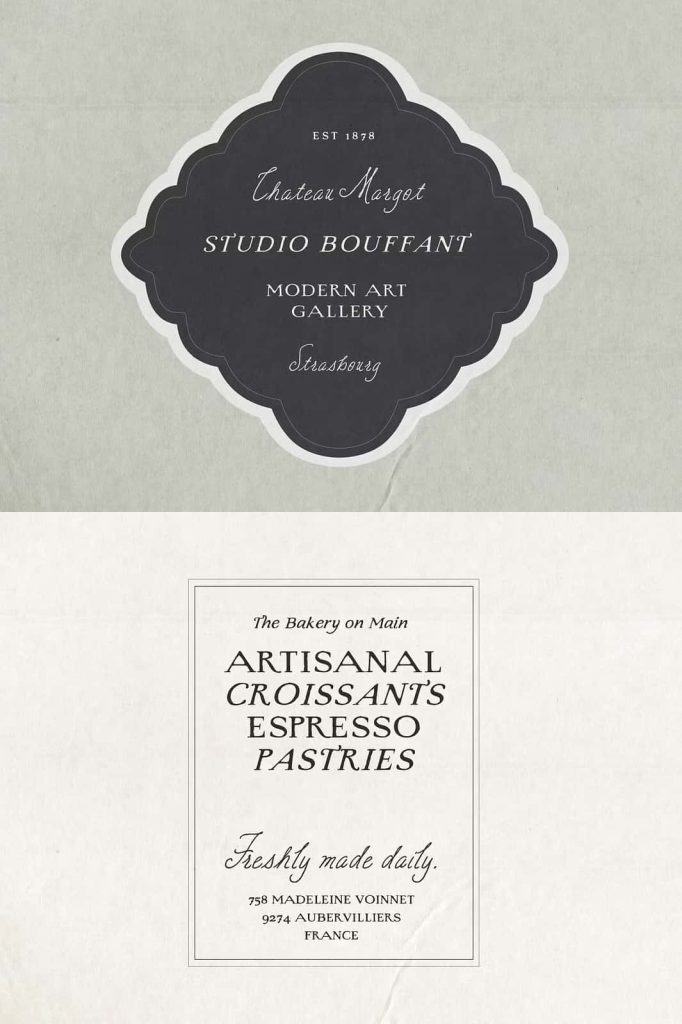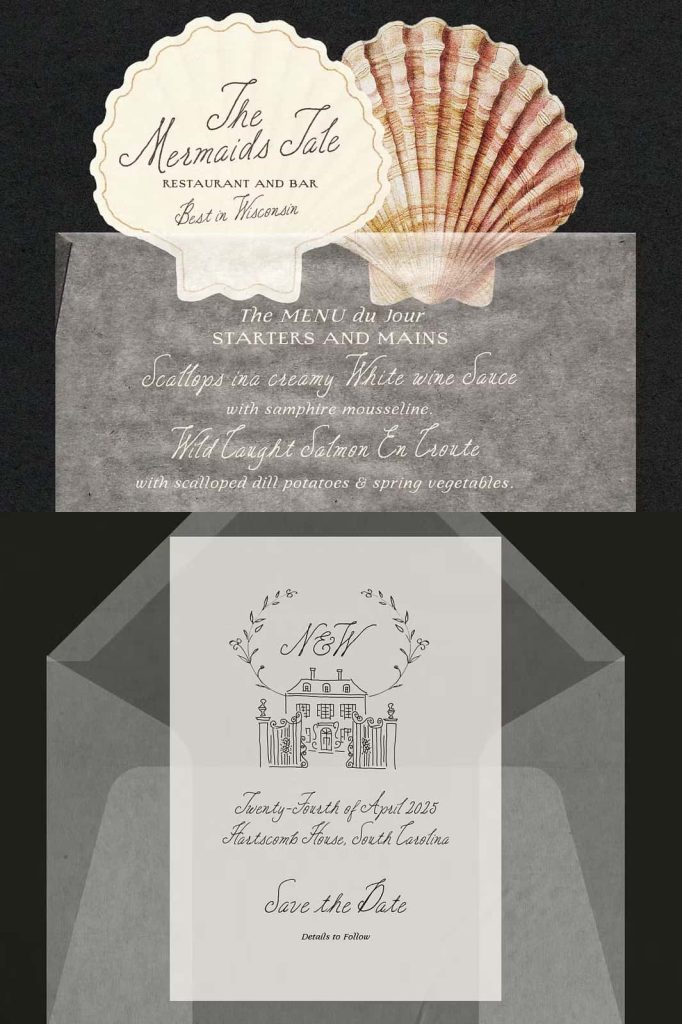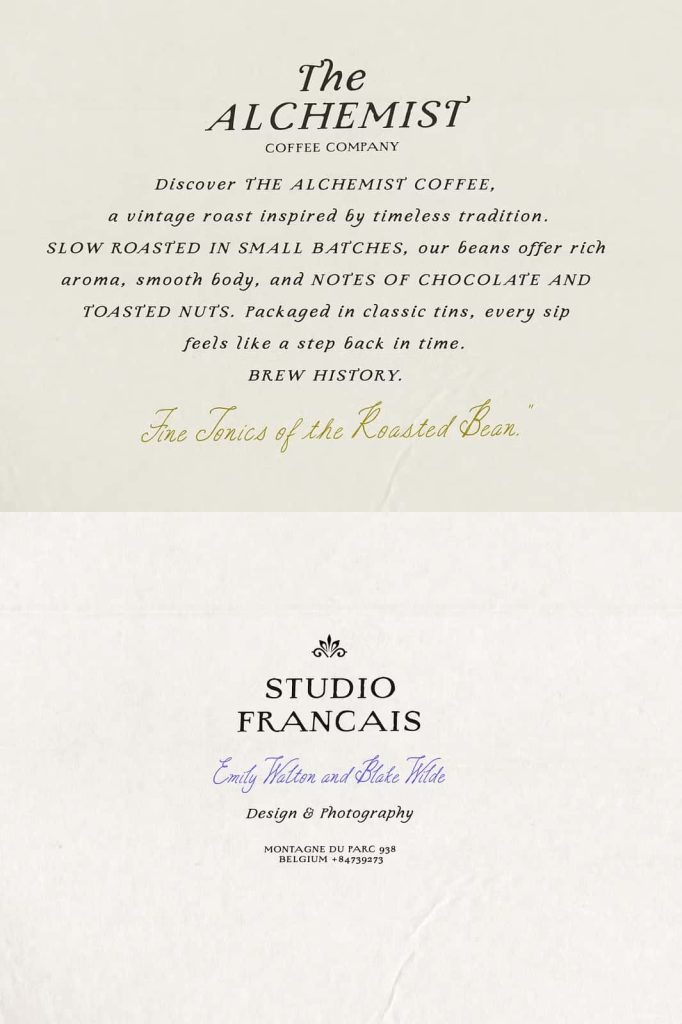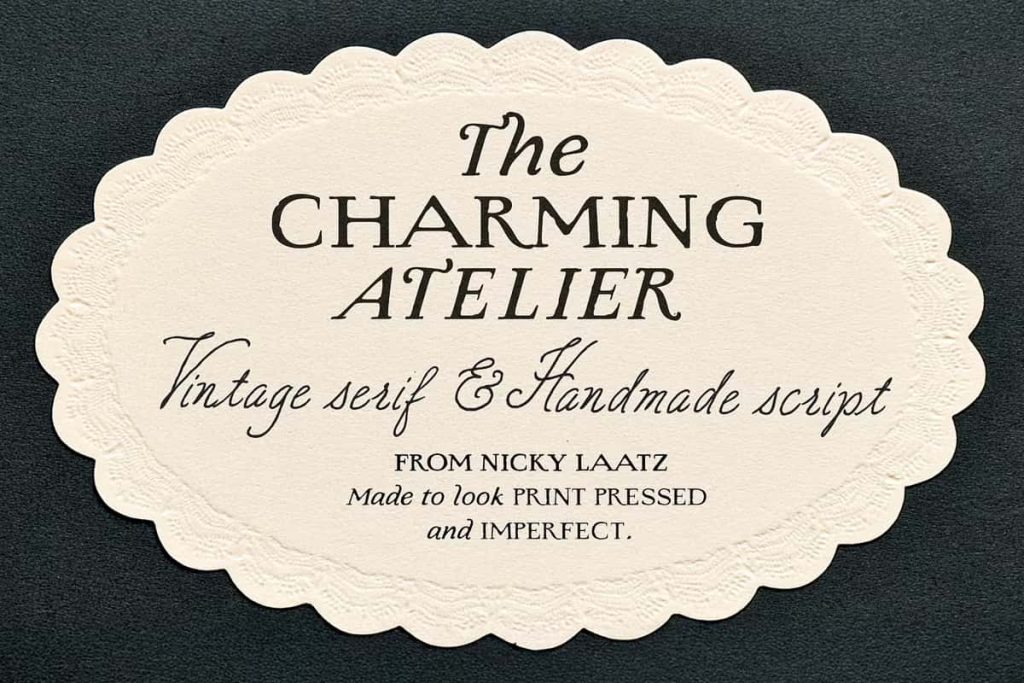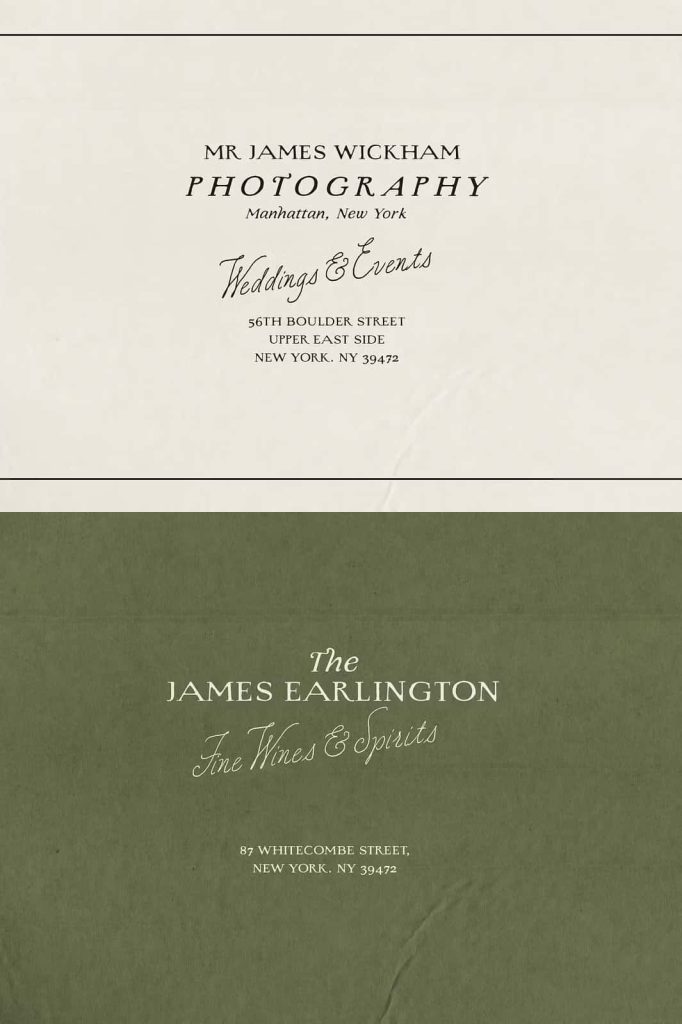
Charming Atelier Font Duo: Vintage Elegance Meets Handcrafted Charm
Charming Atelier Font Duo brings together two beautifully crafted type styles to create a harmonious balance between vintage sophistication and organic warmth. Designed with intention and artistic care, this font duo captures the essence of old-world press printing while embracing the expressive qualities of modern handcrafted lettering. It allows designers to create work that feels timeless, refined, and full of character.
This thoughtfully curated pairing combines a textured serif with a graceful script, giving you the flexibility to build visually rich and engaging compositions. Whether you are designing for branding, editorial layouts, or special events, Charming Atelier provides the tools to elevate your typography with ease.
Inspired by the Romance of Classic Print Design
Charming Atelier draws inspiration from traditional printmaking techniques, where ink, texture, and pressure played a crucial role in shaping each letter. The serif style reflects the imperfect beauty of vintage press printing, with subtle rough edges that add depth and authenticity to your designs.
This historical influence creates a sense of nostalgia while maintaining relevance in modern design contexts. The result is a typeface that feels both classic and contemporary, allowing you to bridge the gap between past and present.
A Serif with Character and Texture
The serif component of the duo features a distinctive “printpress” style. Its slightly rough edges and textured appearance mimic the look of ink pressed onto paper, giving your typography a tactile quality. This makes it ideal for projects that require a sense of heritage and craftsmanship.
The serif works exceptionally well for headlines, titles, and structural elements within your design. It provides a strong visual foundation while adding personality and depth.
An Elegant Script for Expressive Design
Complementing the serif is a sophisticated hand-lettered script that introduces fluidity and grace. This script style features smooth, flowing strokes that contrast beautifully with the textured serif. It adds a sense of elegance and refinement, making your designs feel more dynamic and engaging.
The script is carefully designed to maintain readability while offering expressive detail. You can use it for accents, highlights, or standalone elements that need to capture attention.
Perfect Harmony Between Two Styles
Charming Atelier Font Duo excels because of the balance between its two components. The structured serif provides stability, while the script introduces movement and personality. Together, they create a cohesive typographic system that feels intentional and well-crafted.
This pairing eliminates the need to search for complementary fonts. You can achieve contrast, hierarchy, and visual interest within a single, unified design solution.
Ideal for Timeless and Elegant Projects
Charming Atelier Font Duo adapts effortlessly to a wide range of creative applications. Its combination of vintage charm and modern elegance makes it particularly effective for:
- Branding and identity design
- Wedding invitations and stationery
- Editorial layouts and magazine spreads
- Packaging and product design
- Social media graphics and visual storytelling
The duo allows you to create designs that feel cohesive, expressive, and visually appealing across different formats.
Create Depth and Visual Interest
One of the key strengths of Charming Atelier is its ability to add depth to your typography. By combining the textured serif with the flowing script, you can create layered compositions that draw the viewer’s attention. Use the serif for structure and the script for emphasis to guide the eye through your design.
This approach helps you build layouts that are both functional and visually engaging. It also allows you to experiment with different styles while maintaining consistency.
Effortless Elegance in Every Design
Charming Atelier simplifies the design process by offering a ready-made pairing that works seamlessly together. You can quickly create polished and professional results without spending time searching for matching fonts. The duo’s cohesive design ensures that your work always feels balanced and intentional.
Pair it with subtle textures, neutral color palettes, or classic design elements to enhance its vintage appeal. At the same time, it adapts well to modern layouts, making it a versatile choice for various creative directions.
Why Choose Charming Atelier Font Duo
Charming Atelier stands out because it combines the best of both worlds. It delivers the authenticity of vintage print design alongside the elegance of handcrafted script lettering. This combination allows you to create designs that feel rich in detail and full of personality.
The font duo provides a complete typographic solution, giving you the flexibility to explore different styles without sacrificing consistency. It supports your creative vision while maintaining a high level of quality and refinement.
Elevate Your Typography with Timeless Style
If you want to create designs that feel elegant, expressive, and rooted in craftsmanship, Charming Atelier Font Duo offers the perfect foundation. Use it to craft memorable branding, sophisticated invitations, and visually compelling layouts that leave a lasting impression.
Explore its unique pairing and bring a sense of timeless beauty and organic charm to every project you create.